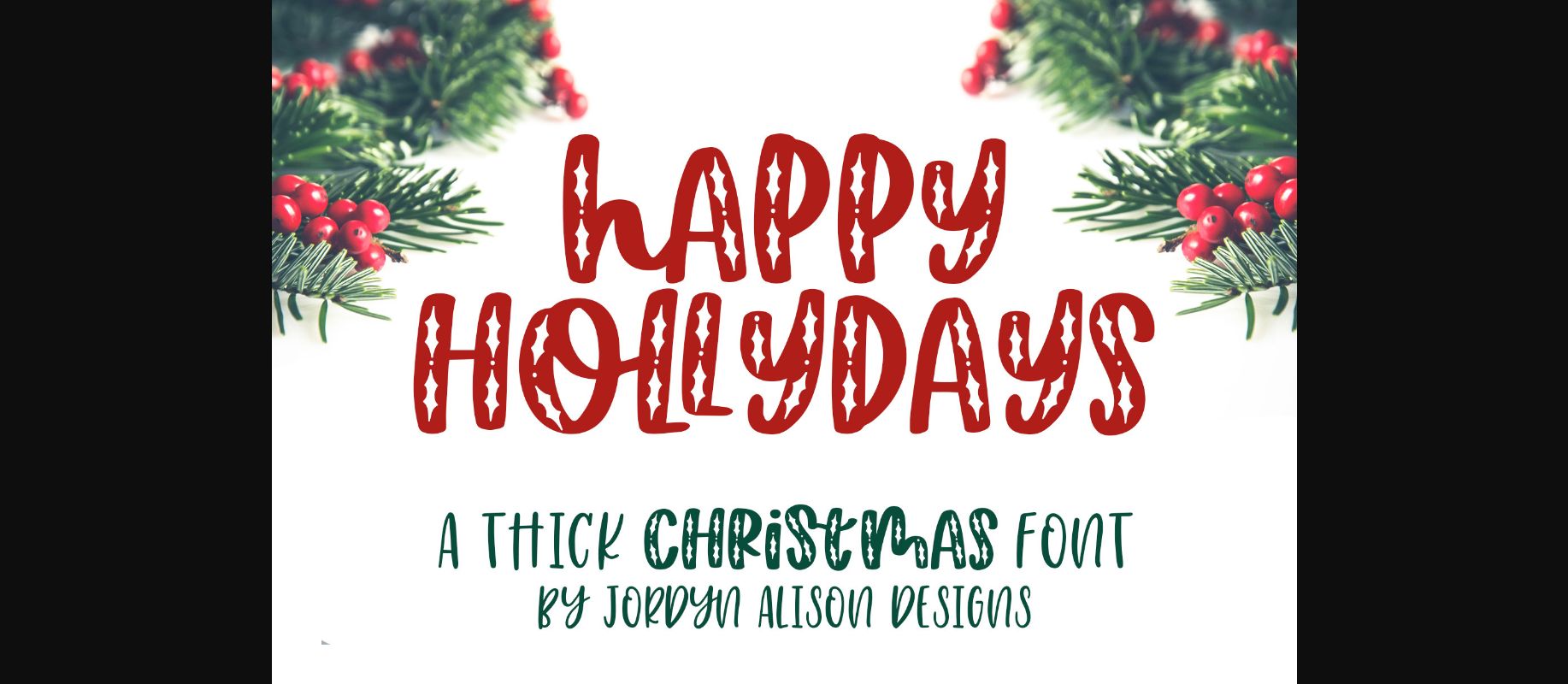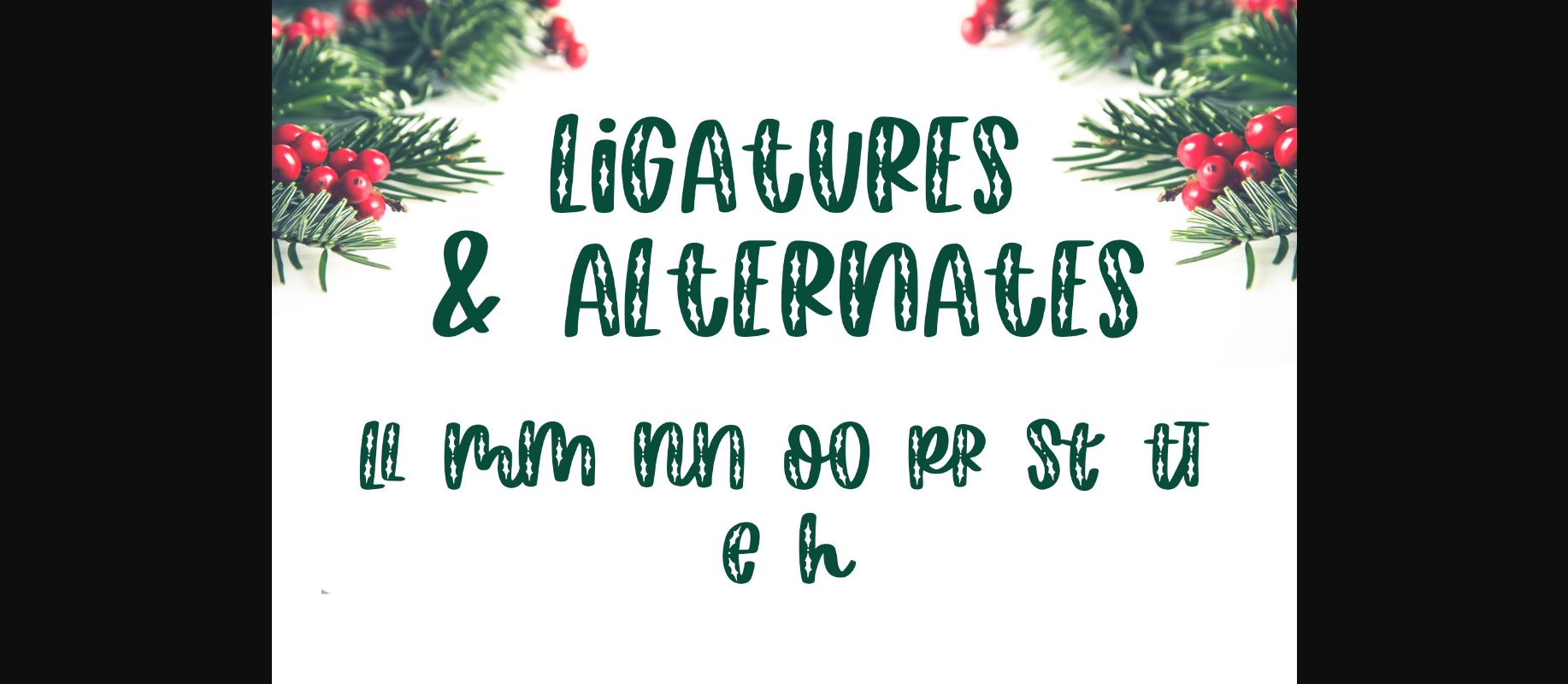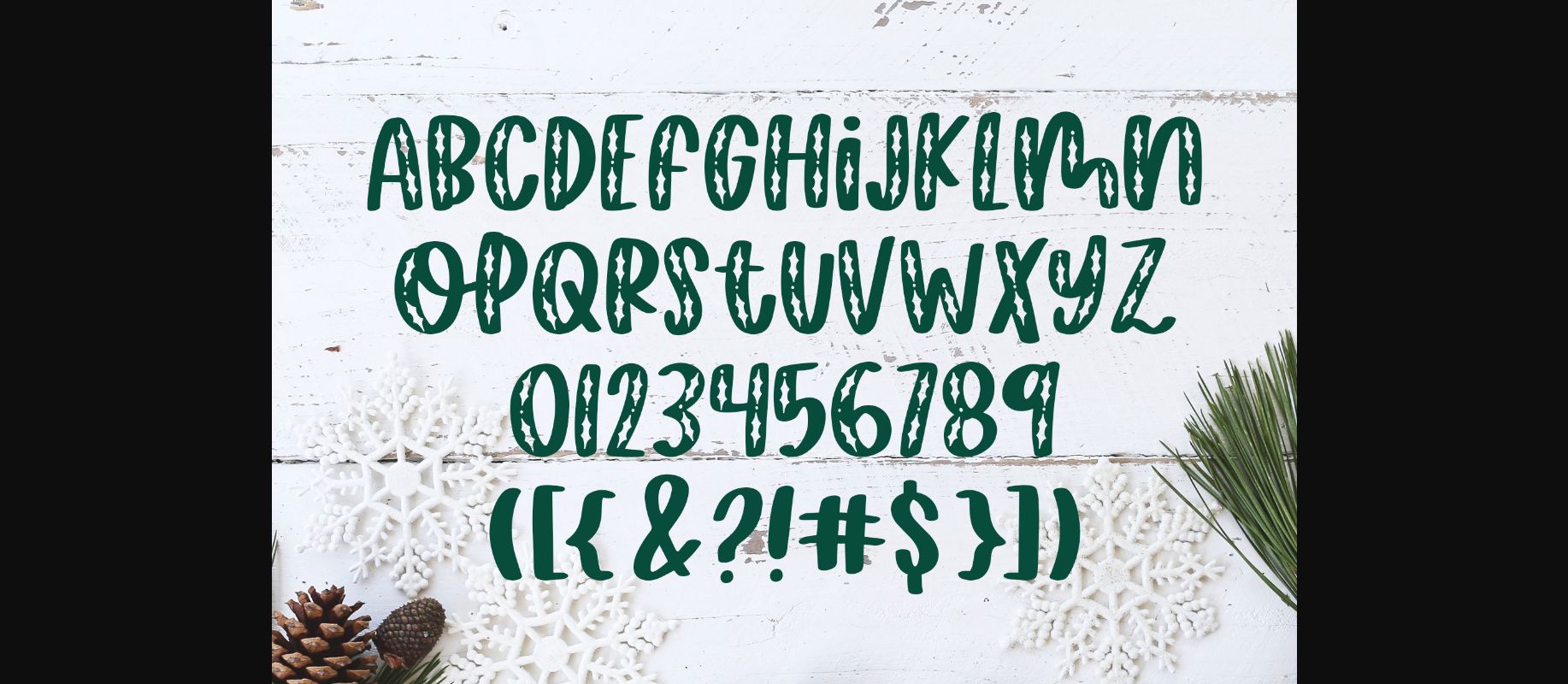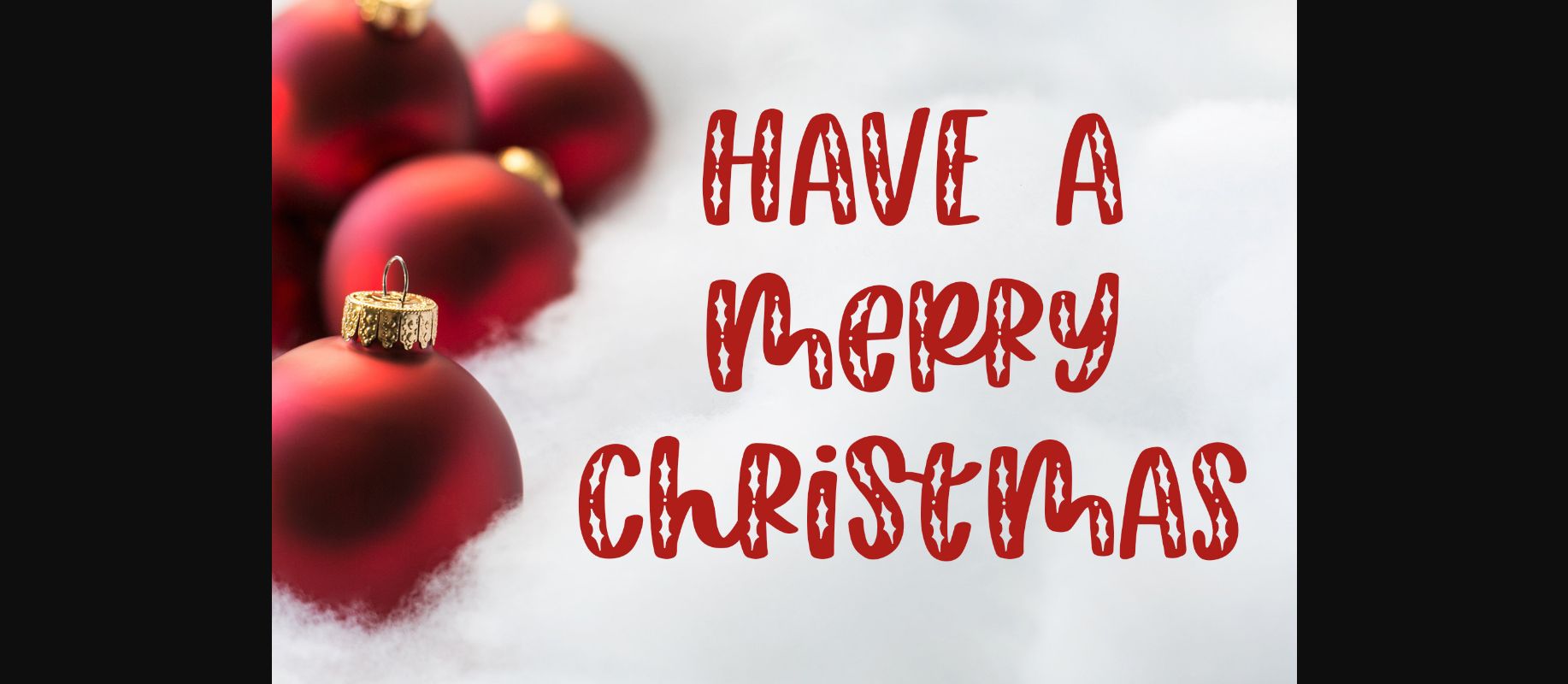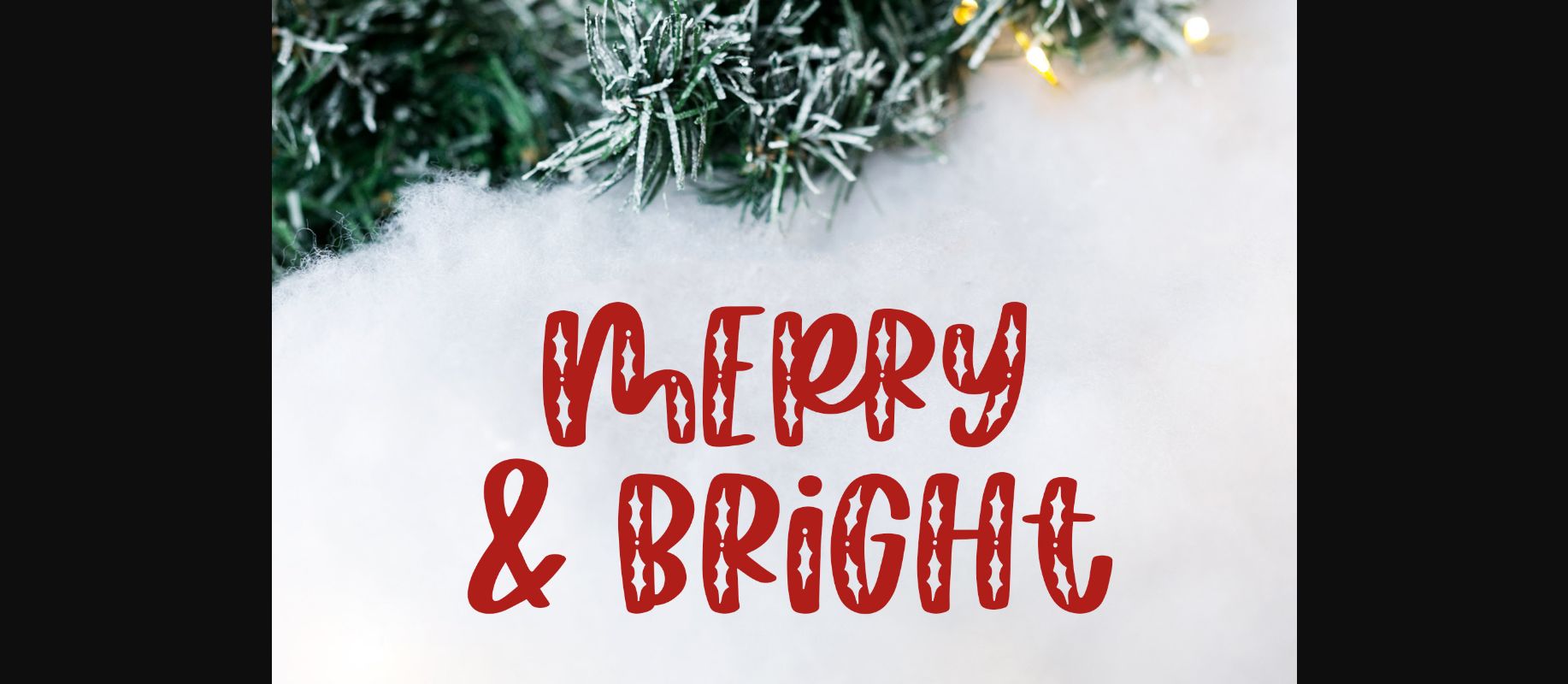
About Happy Hollydays Font
Happy Hollydays is a delightful and festive holiday font that exudes joy and cheer. Its playful, thick strokes and whimsical characters add a touch of merriment to any project. Perfect for crafting greeting cards, invitations, and seasonal designs, this font will surely spread the holiday spirit with its fun and jolly appeal. Let your creativity shine with Happy Hollydays as you celebrate the most wonderful time of the year!